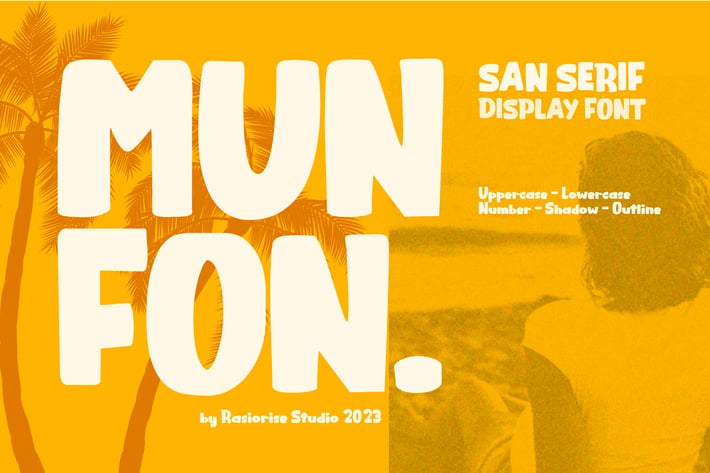
Munfon - Retro Sans Serif Display Font
Introducing Munfon Retro Sans Serif Display Fun Font By Rasiorise Studio
Munfon has been released for those of you who are looking for a Sans Serif Cartoon Font with 3 varians font, Regular, Monoline and Shadow style font. The font is inspired by the Retro Movie poster Typography handrawing font style with a few combine to turn them into a bit of a Retro Cartoon Playful Font style.
Very suitable for Logotype, Book Cover, Cartoon Poste, Birthday Invitation, Sale promotion, Story Book and much more
1. Include 3 Variant Font : Regular Font, Monoline Font and Shadow Font
2. Uppercase
3. Number
4. Punctuation